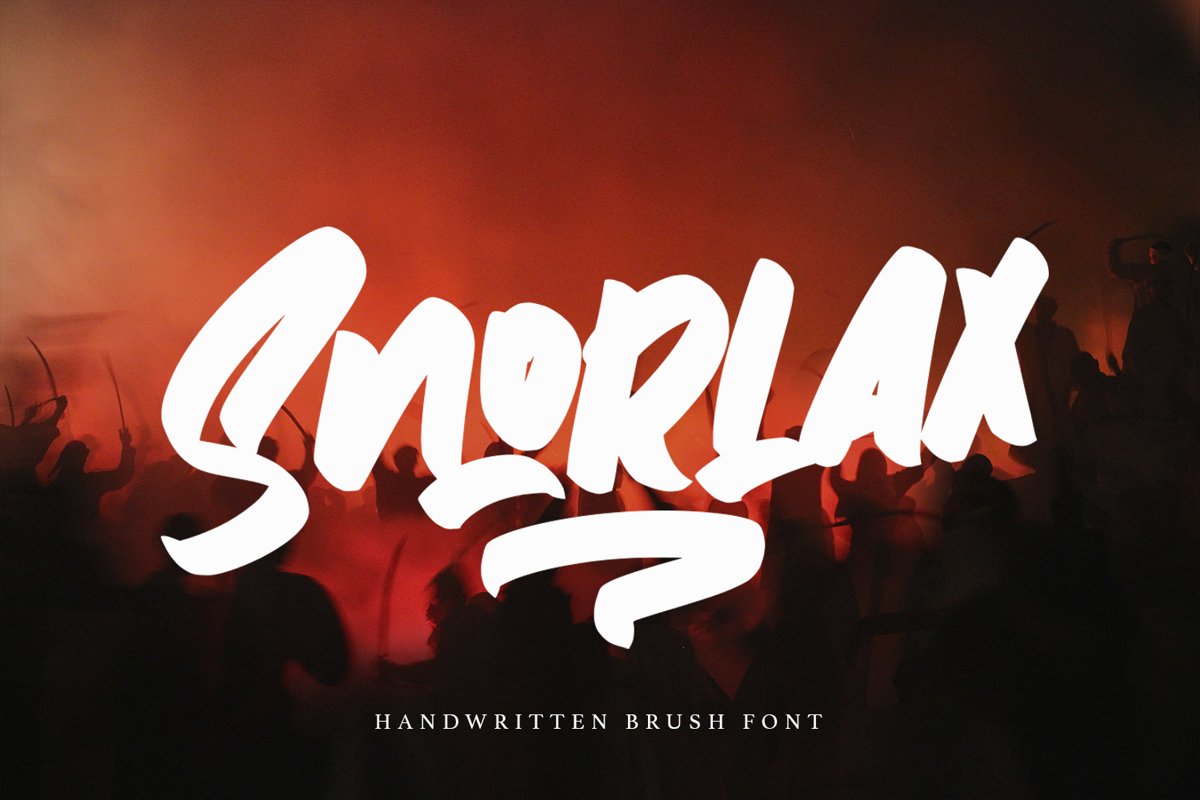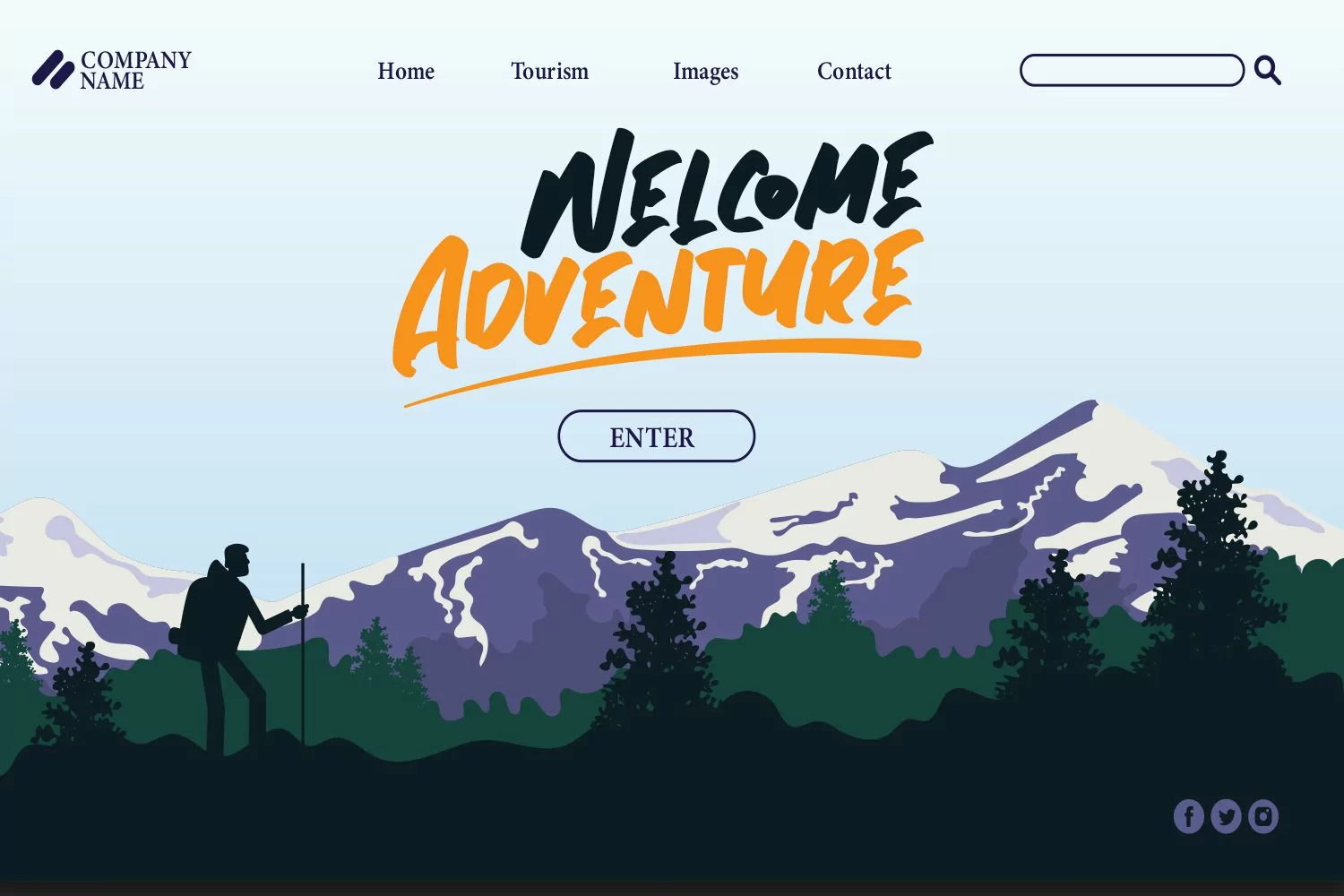
Snorlax - Script Bold Fonts that contain lowercase, uppercase, symbol, and also support multi language. There’s a lot ligatures in this font. This Font also comes with ligatures, alternates and many more. this font suitable for fashion, branding, catalog and other design what you want.
Snorlax